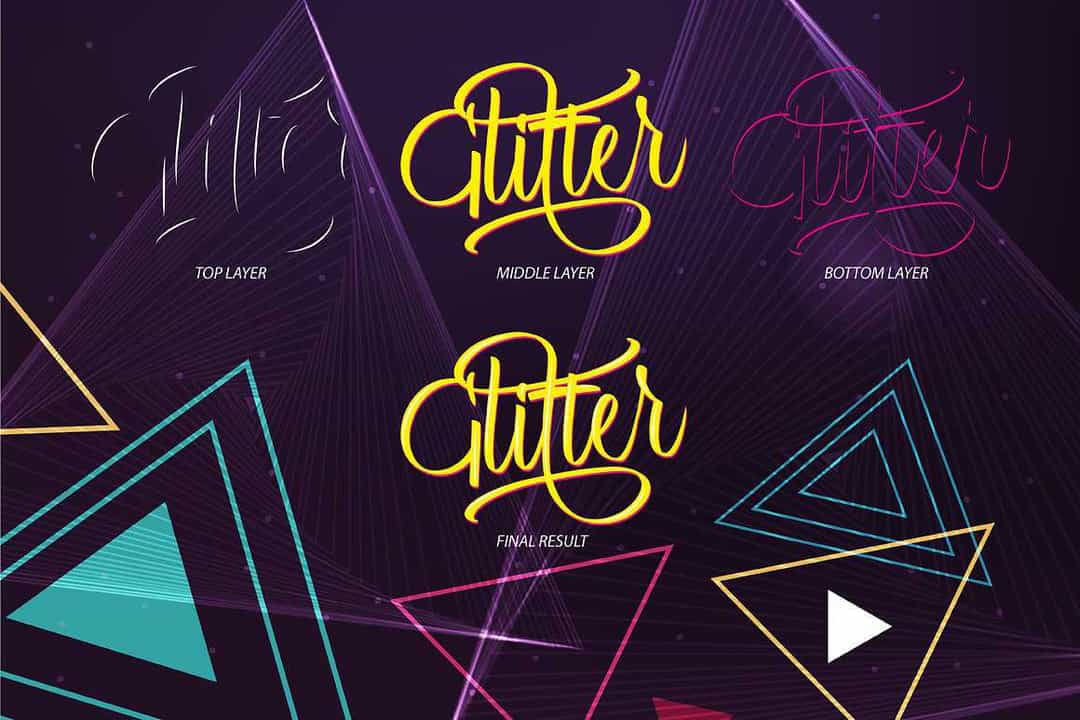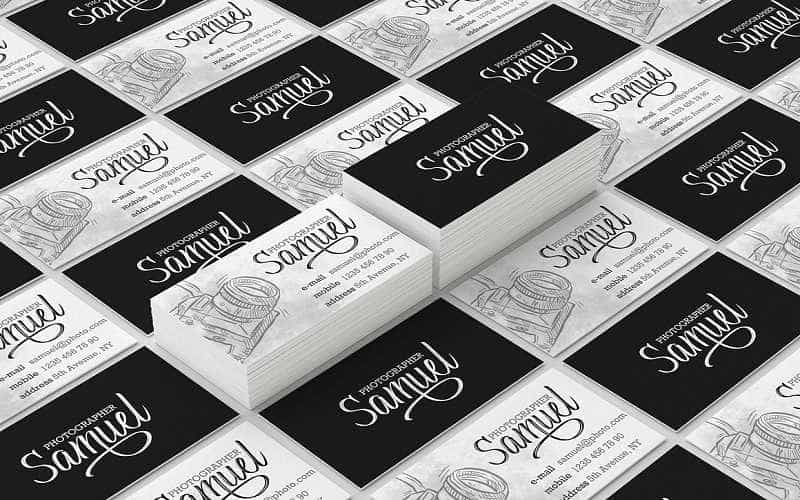
Discover Glitter Script Font, part of the Brush Calligraphy Handwritten collection—a versatile and unique font perfect for adding a personal touch to your projects. Download it for free and enjoy crafting designs with style, from invitations to social media posts. This font is available exclusively for personal use, giving you the freedom to create without limits. Unlock your creativity with Glitter Script Font today!
It is cute, and it’s a font generated from handwriting that is perfect for use during celebrations such as graduation ceremonies, festivals, ceremonies, weddings, the eve of the New Year, and more. Regular glittery, shiny glittery, shadow glittery and rough are the four versions and it can also has three files which can has layers to creating posts with shiny and shadow without needing any additional software installation or down loading.